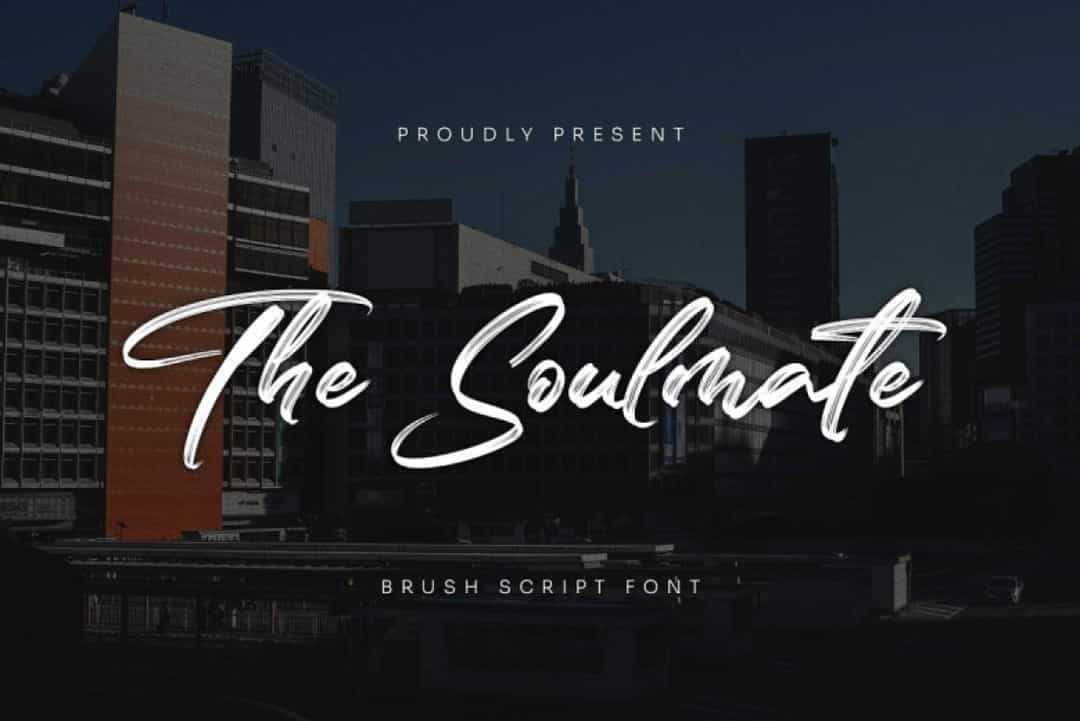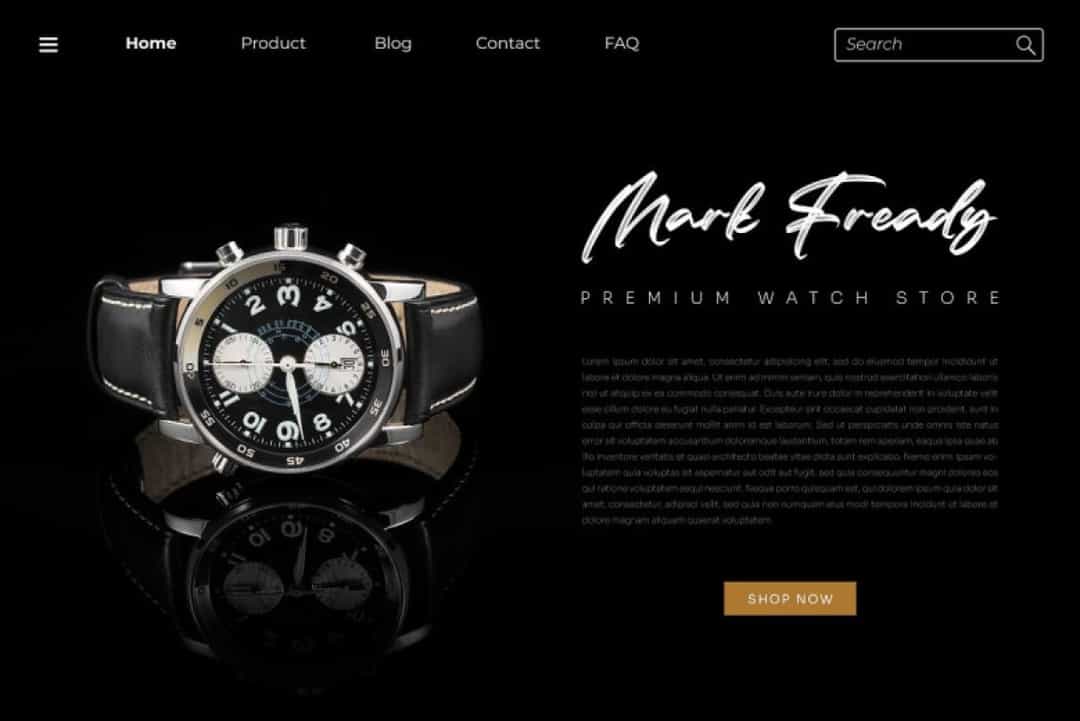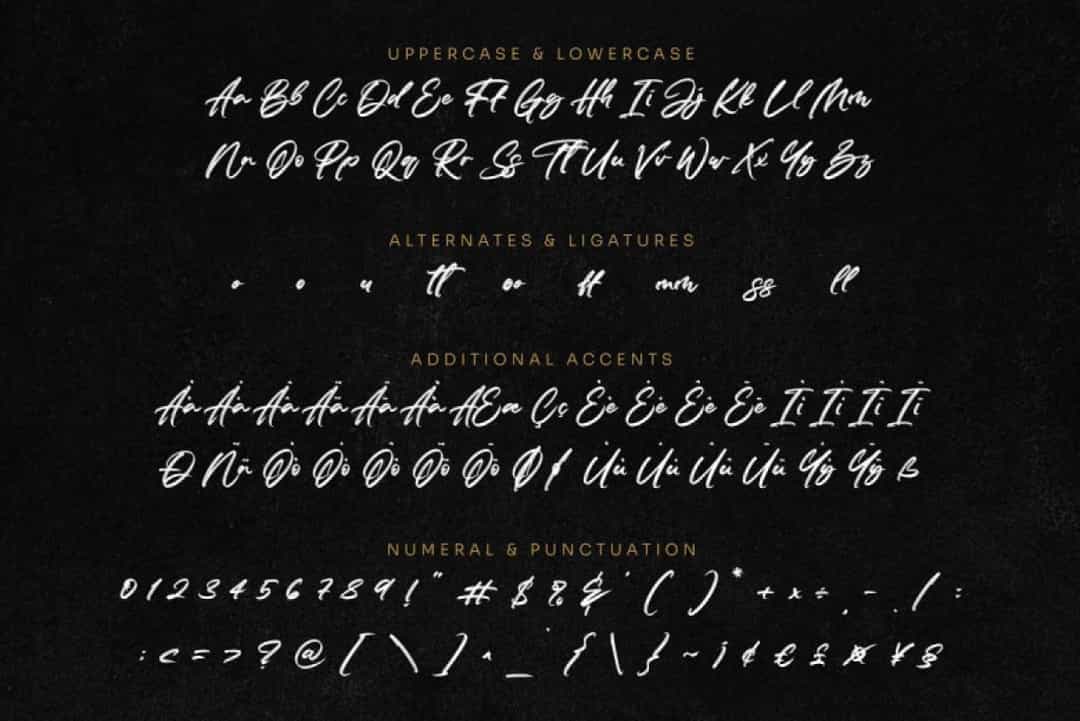
Soulmate is a genuine brush script typeface written casually and quickly using brushes and paper. Letters are then scanned into vector format after meticulous sketching into vector form for precise vectorization – this method gives The Soulmate its charming, natural, and relaxed characteristics that bring out more natural textual reading experiences for readers.